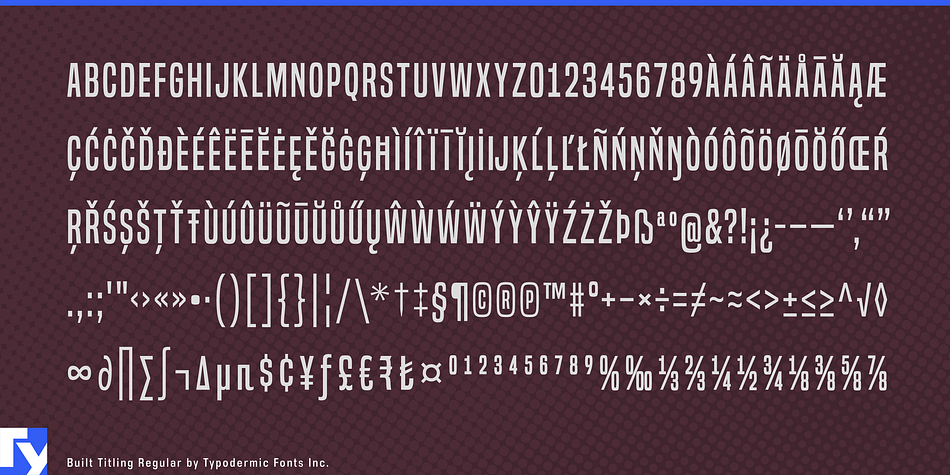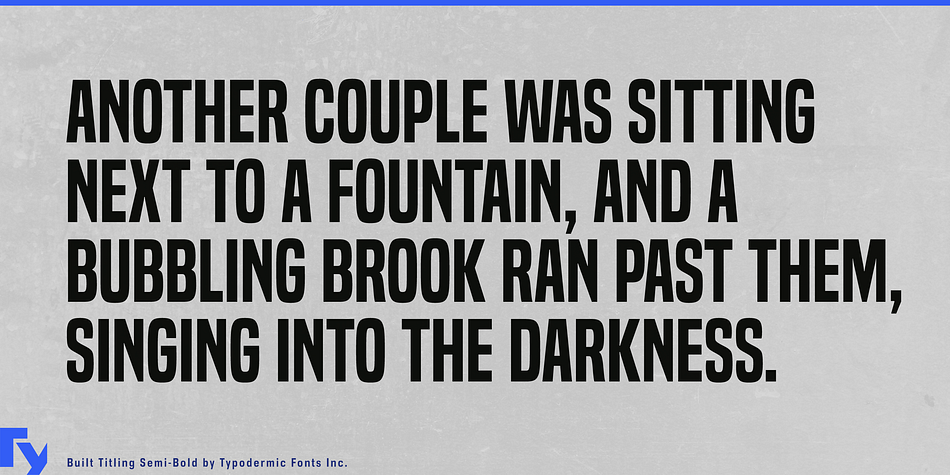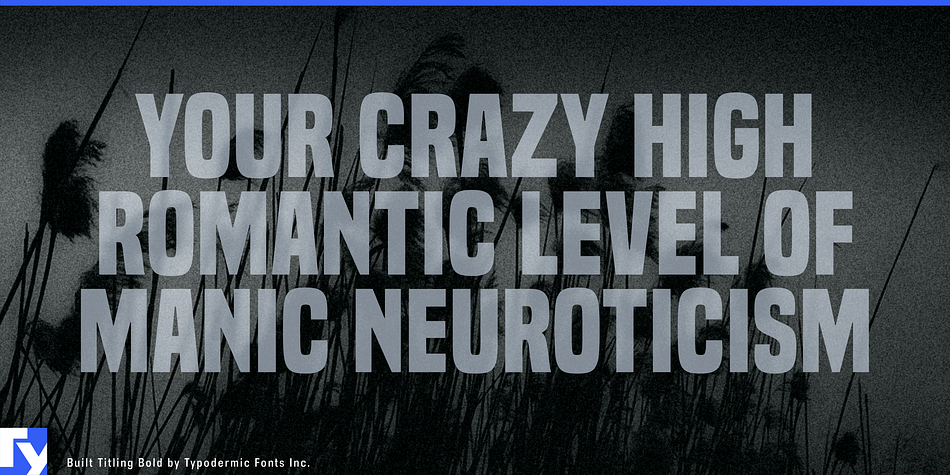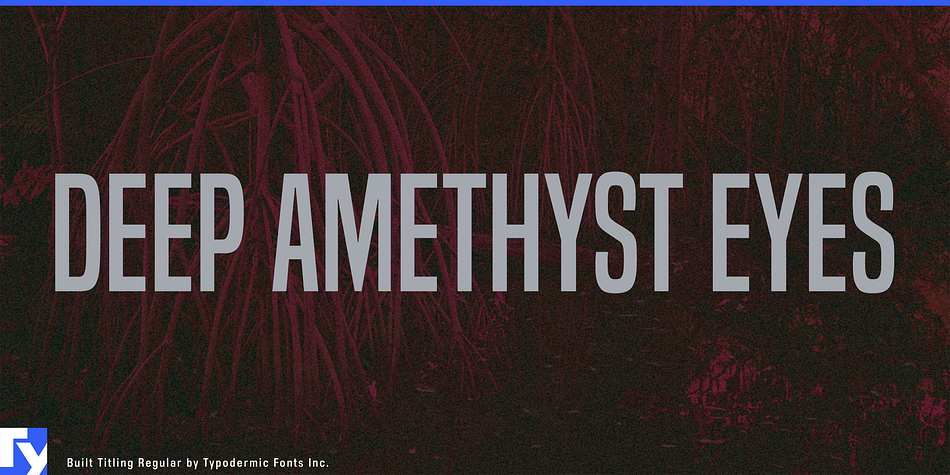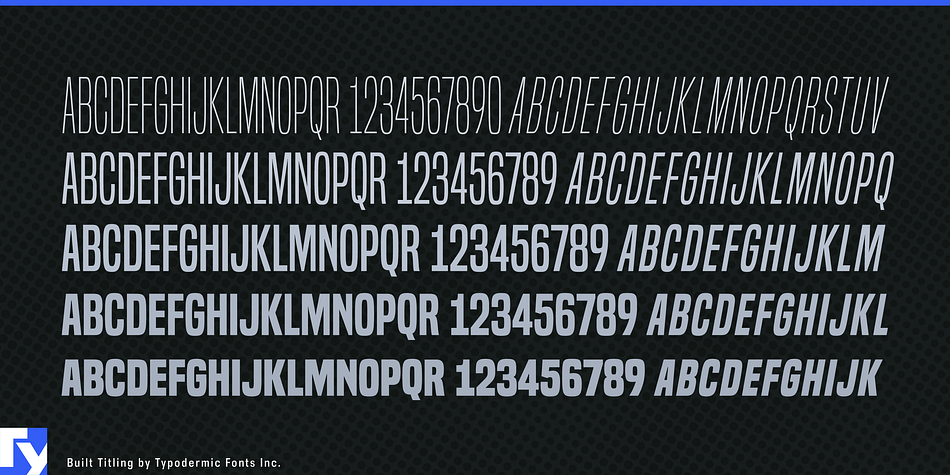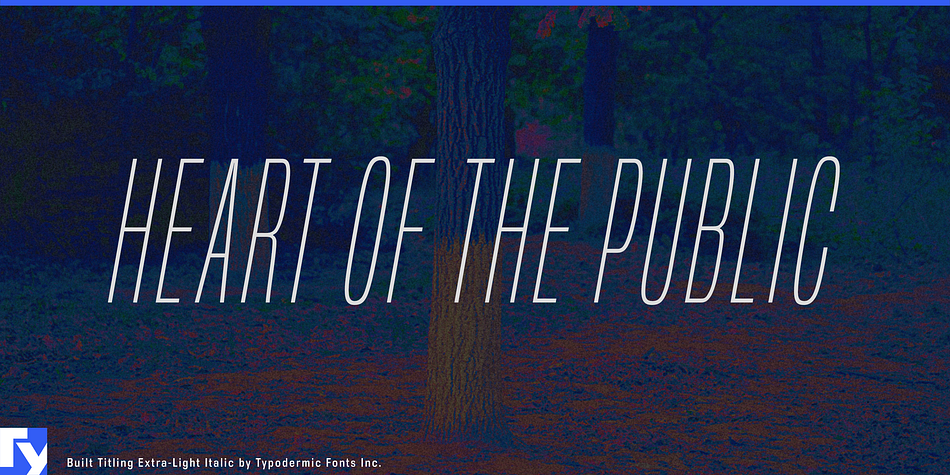
Built Titling is a display sans font family. This typeface has ten styles and was published by Typodermic Fonts Inc.
Built has one job: making solid, compact headlines onscreen. Designed with trust and neutrality in mind, Built’s wraparound shapes speak your headlines in newsy voice. Subtle curls conjure a feeling of a different news era while not coming across as particularly old-fashioned.
The Built family comes in five weights, from extra-light to bold. But not your typical thin to fat linear range. When you’re designing for the screen, there are practical limitations with light fonts. These days, with variable resolutions and screen sizes, going lighter means going bigger. Much bigger. And it’s no fun if your words end up falling off the line. Built actually gets narrower as it gets lighter. Now you can can scale way up and still have room to spare. Set attractive, oversize page titles without worrying if the words will fit.
Tabular (monospace) numerals are handy when you have lists of numbers to align. In headlines, tabular numerals don’t look so hot—and they waste space. Lots of fonts let you choose between proportional and tabular numerals. OpenType technology lets designers access different types of numerals, but implementing OpenType features on the web isn’t always practical. Built has a simple solution: if you turn off kerning, numerals, monetary symbols and most math symbols line up. Easy.
Built has fractions, primes, numeric ordinals, compact accents, the Indian rupee and the Turkish lira. As Built loses weight, its asterisk sprouts more legs, retaining it’s presence even in Extra-Light. The italics are squeezed thin and loosened up on the sides, creating cool emphasis that’s more than just a slant.
Built is available in Extra-Light, Light, Regular, Semi-Bold and Bold plus italics.